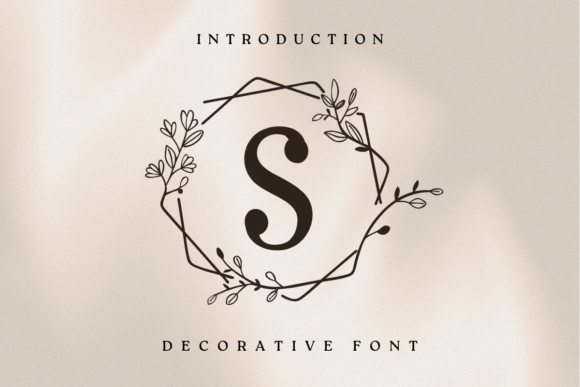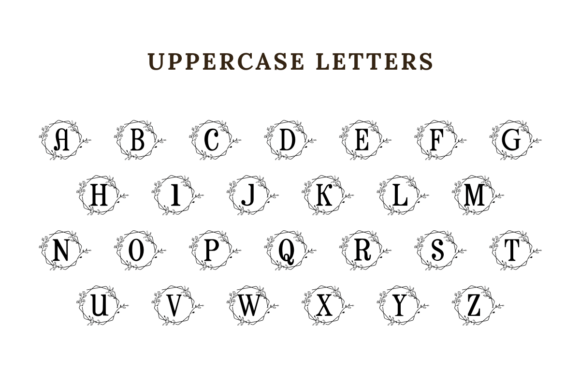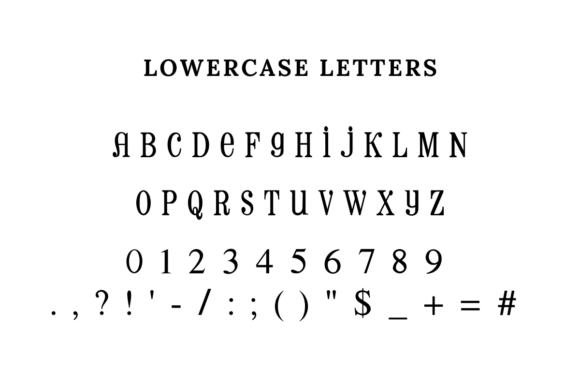
Wedding Monogram Font
Wedding Monogram is a beautiful and decorative font designed especially for creating elegant initials or logos for weddings. Its fancy letters add a touch of romance and style, making it perfect for invitations, programs, and other wedding stationery.